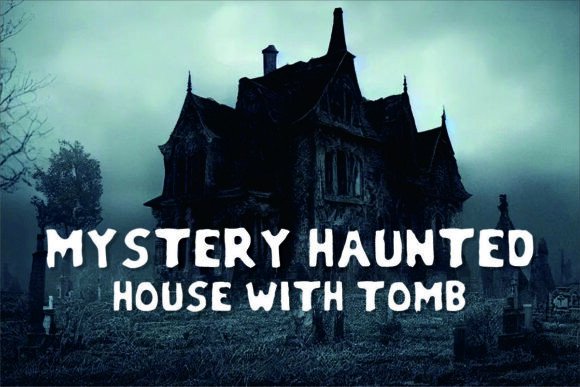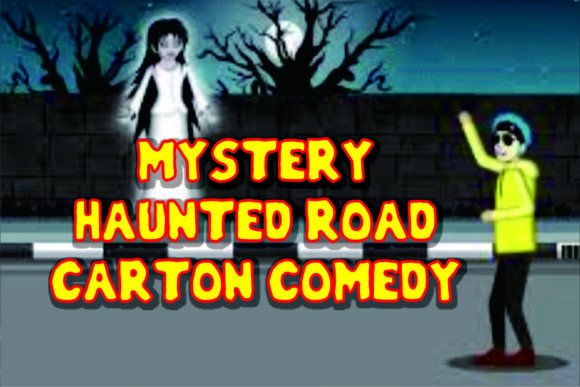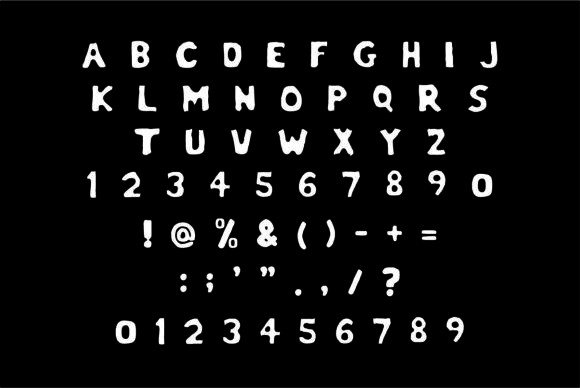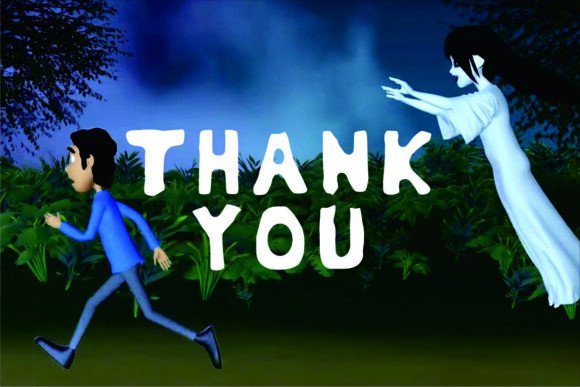
Hantu Font: Unleash the Spookiness in Your Designs
Are you looking for a font that can add a spooky feel to your designs? Look no further than Hantu Font! This unique display font is perfect for designers and crafters who want to create eerie and captivating designs that will leave a lasting impression. In this article, we’ll dive into the features and benefits of Hantu Font, and explore how it can elevate your design projects to the highest level.
What is Hantu Font?
Hantu Font is a distinctive display font that is designed to add a touch of spookiness to your designs. The font’s unique and quirky style makes it perfect for creating eye-catching titles, logos, labels, and more. Whether you’re working on a branding project, t-shirt design, or any other creative endeavor, Hantu Font is sure to make your design stand out from the crowd.
Features of Hantu Font
- Unique and Quirky Style: Hantu Font boasts a one-of-a-kind design that is sure to grab attention.
- Spooky Feel: The font’s eerie style is perfect for creating designs that are spooky, yet captivating.
- Display Font: Hantu Font is designed specifically for display purposes, making it ideal for titles, headings, and other prominent design elements.
- Versatile: This font can be used for a wide range of design projects, from branding and logos to t-shirt designs and labels.
Benefits of Using Hantu Font
So, why should you choose Hantu Font for your design projects? Here are just a few benefits of using this amazing font:
- Adds a Touch of Spookiness: Hantu Font is perfect for creating designs that are spooky, yet stylish.
- Increases Visual Impact: The font’s unique style is sure to grab attention and leave a lasting impression.
- Elevates Design Projects: Hantu Font can elevate any design project to the highest level, making it perfect for designers and crafters who want to create high-quality designs.
How to Use Hantu Font in Your Designs
Using Hantu Font in your designs is easy! Here are a few tips to get you started:
- Pair with Other Fonts: Pair Hantu Font with other fonts to create a unique and eye-catching design.
- Use for Titles and Headings: Use Hantu Font for titles and headings to add a touch of spookiness to your design.
- Get Creative: Don’t be afraid to experiment and try out new and creative ways to use Hantu Font in your designs.
In conclusion, Hantu Font is a unique and versatile display font that is perfect for adding a spooky feel to your designs. With its quirky style and eerie charm, this font is sure to elevate any design project to the highest level. Whether you’re a designer, crafter, or DIY enthusiast, Hantu Font is a must-have font for your design arsenal. So why wait? Download Hantu Font today and start creating spooky and captivating designs that will leave a lasting impression!
- Hantu Font is a unique display font perfect for adding a spooky feel to designs.
- The font features a quirky and eerie style that is sure to grab attention.
- Hantu Font is versatile and can be used for a wide range of design projects.
- The font is easy to use and can be paired with other fonts and colors to create a unique design.